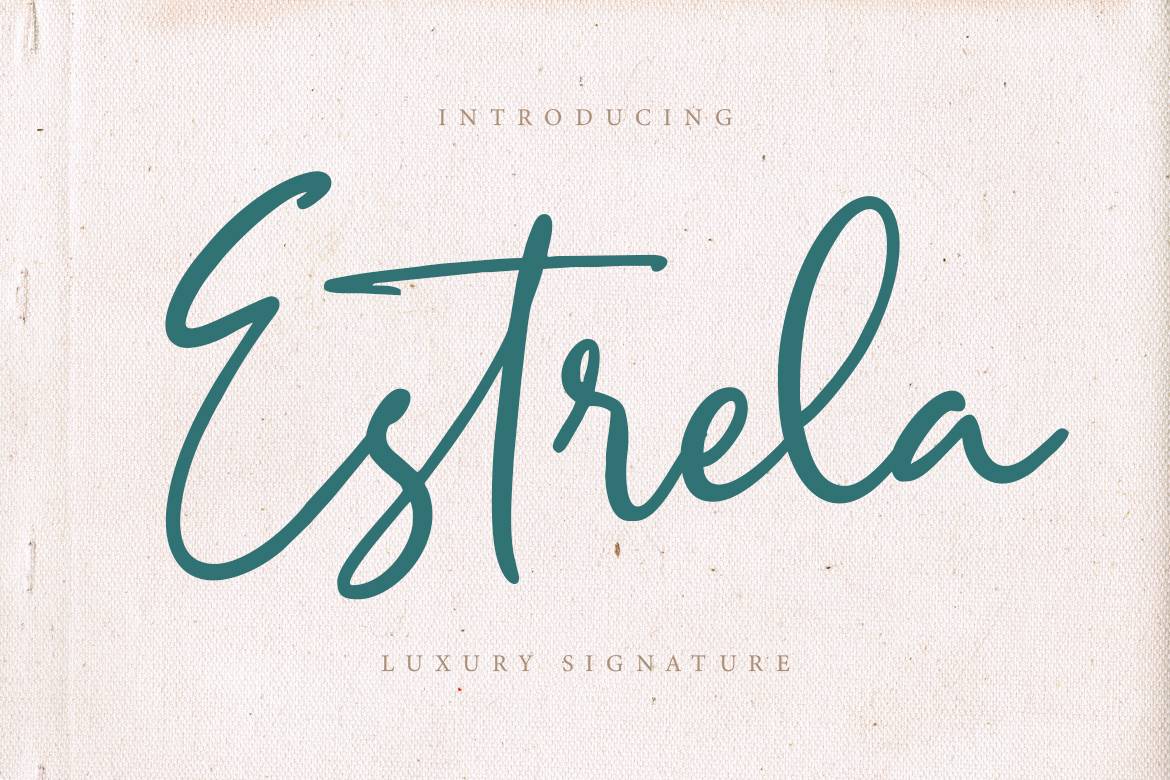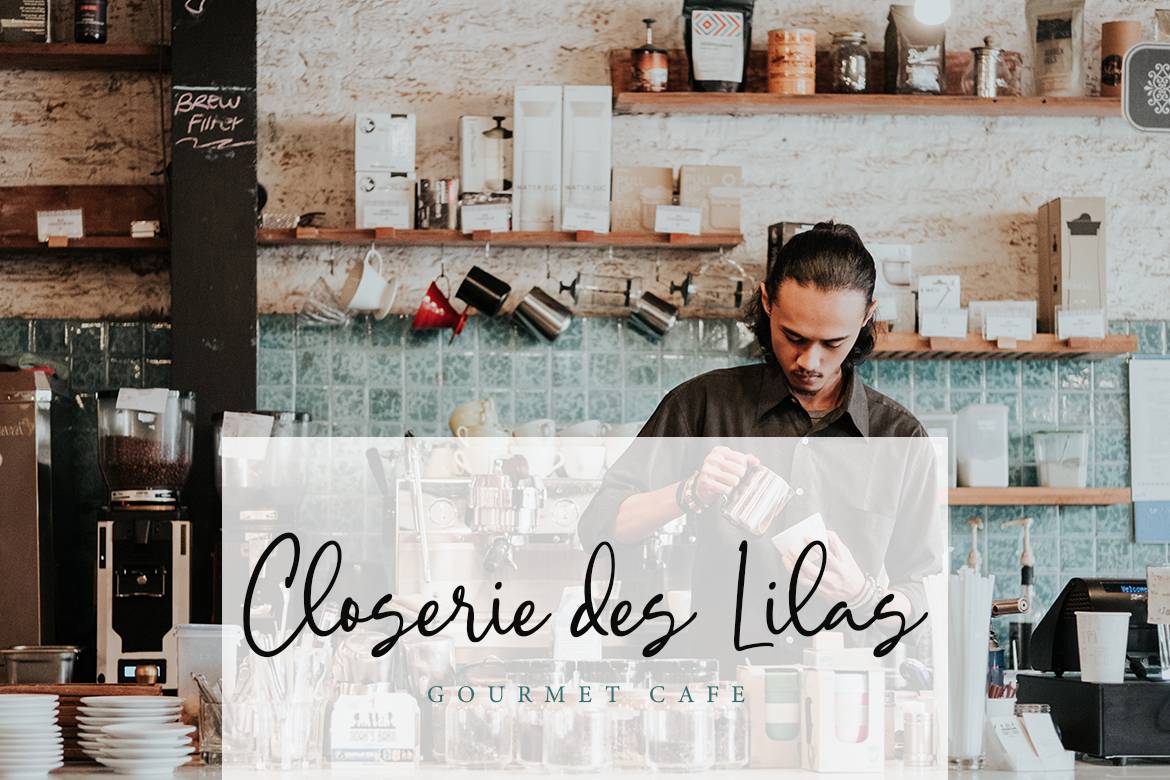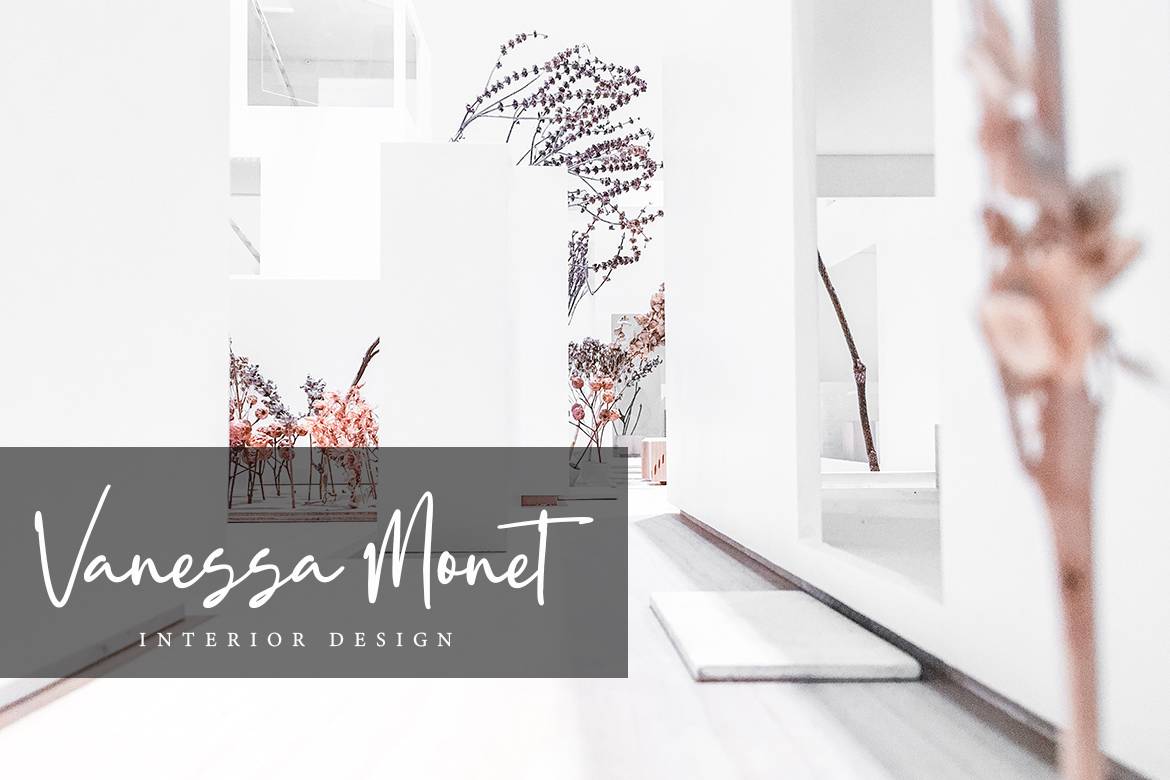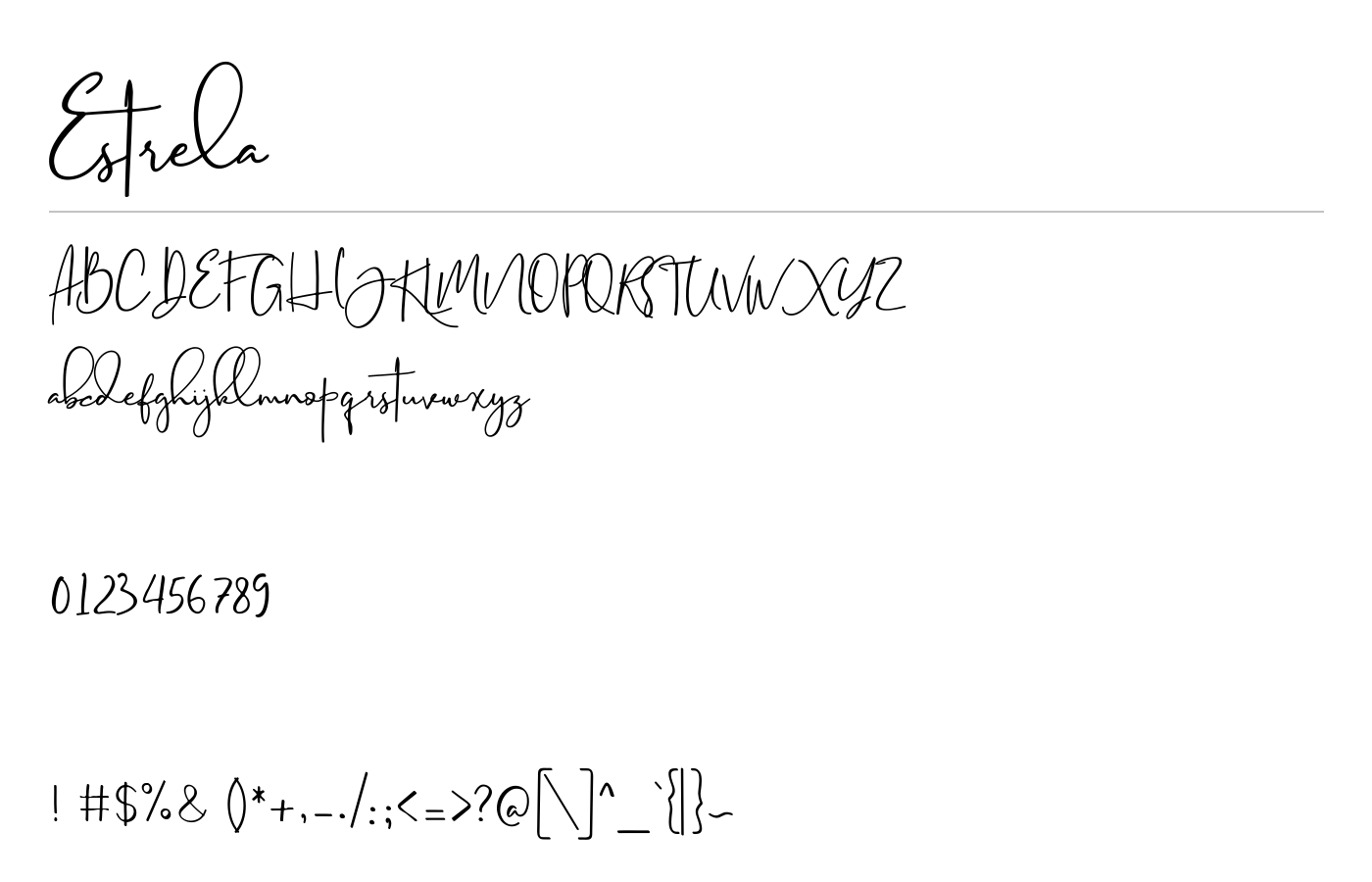
Estrela Luxury Signature Font is an elegant, handwritten script characterized by its tall, slender letterforms and delicate, flowing lines that convey a refined, sophisticated feel. Its light weight and airy spacing make it perfect for luxury branding, wedding invitations, and stylish logos where a personal, graceful touch is desired. This font shines in designs that need a modern yet timeless signature look, adding a sense of exclusivity and charm.
Estrela Luxury Signature Font
About Estrela Luxury Signature Font